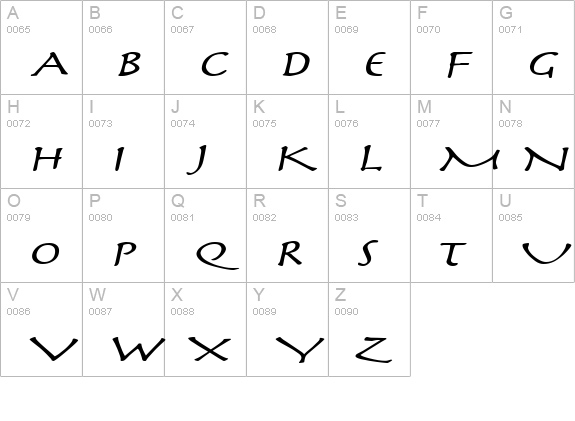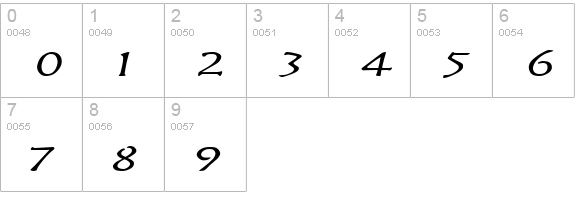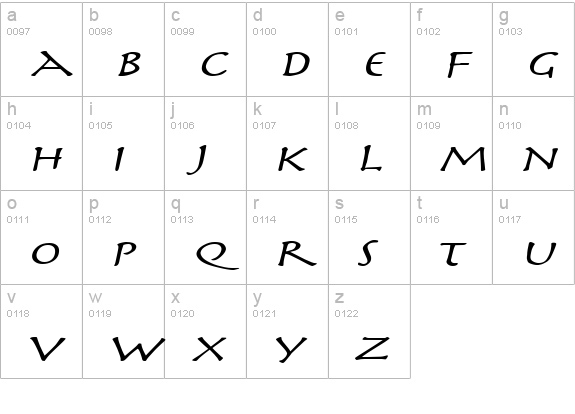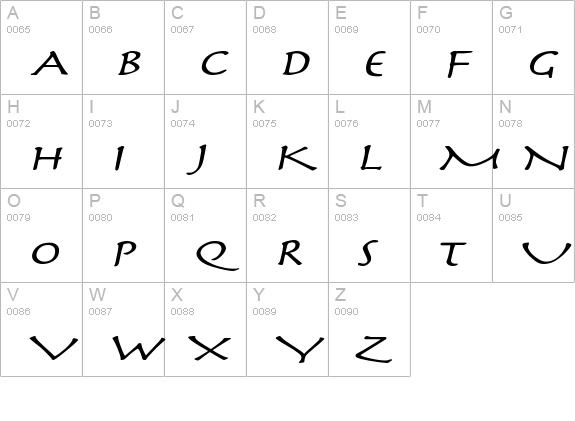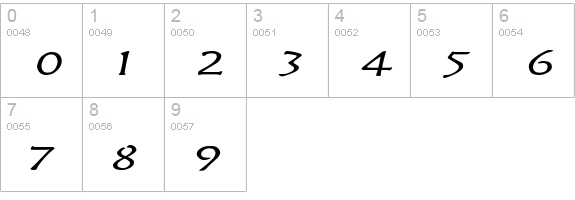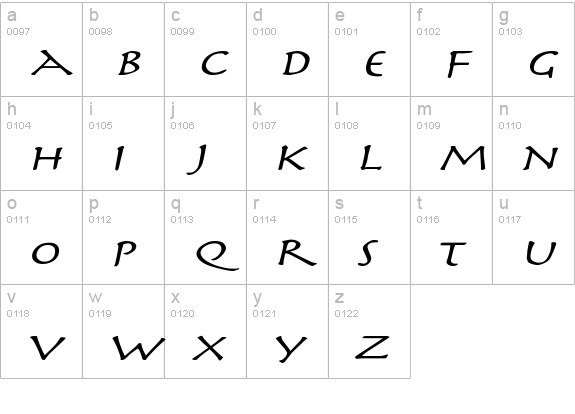
Mythology Extended Italic Font Details
Mythology Extended Italic is a distinctive, extended-width, italic variant in the Mythology typeface family \xE2\x80\x94 well suited to design and typography projects.
Introducing Mythology Extended Italic, a captivating and elegant font that draws inspiration from ancient myths and legends. This font exudes a sense of mystery and enchantment, making it perfect for adding a touch of magic to your designs. With its sleek and modern design, Mythology Extended Italic is ideal for a wide range of projects, from branding and advertising to packaging and invitations. The italicized style adds a dynamic and sophisticated flair to any text, making it stand out and command attention. Best of all, Mythology Extended Italic is available for free download at FontsMarket.com. Don't miss out on the opportunity to elevate your designs with this stunning and versatile font. Download it today and unleash your creativity!